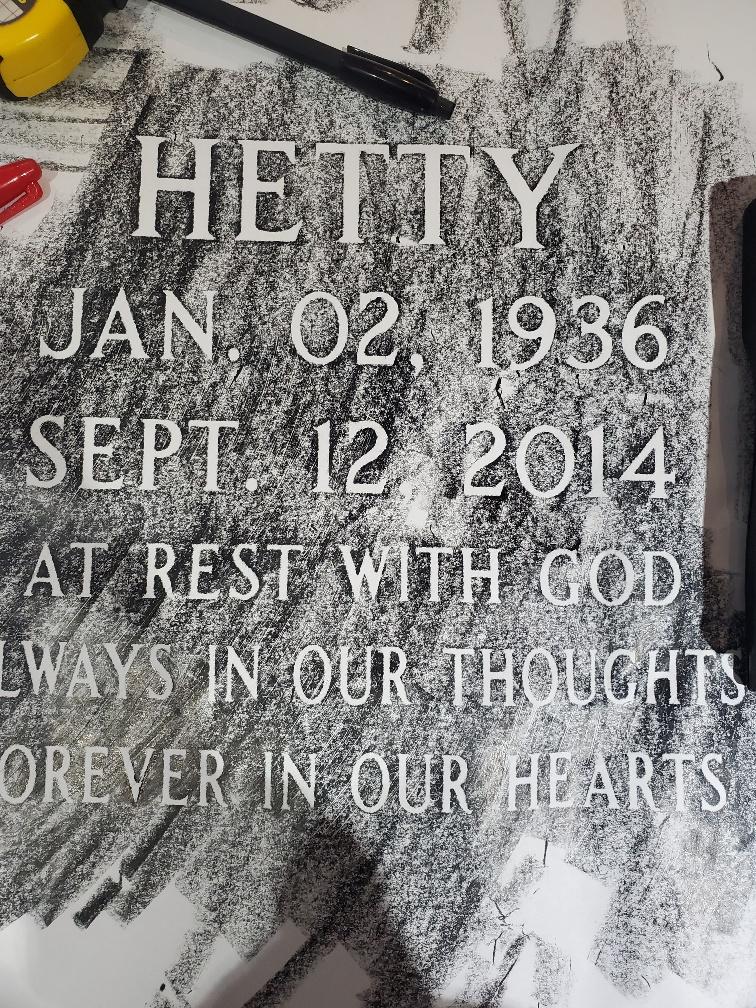
Font ID – Any ideas
Hello, at first glance this appears to be a hand-cut Modified and Condensed Roman, but the consistency of the characters makes it more likely that this is an unknown custom digital font.